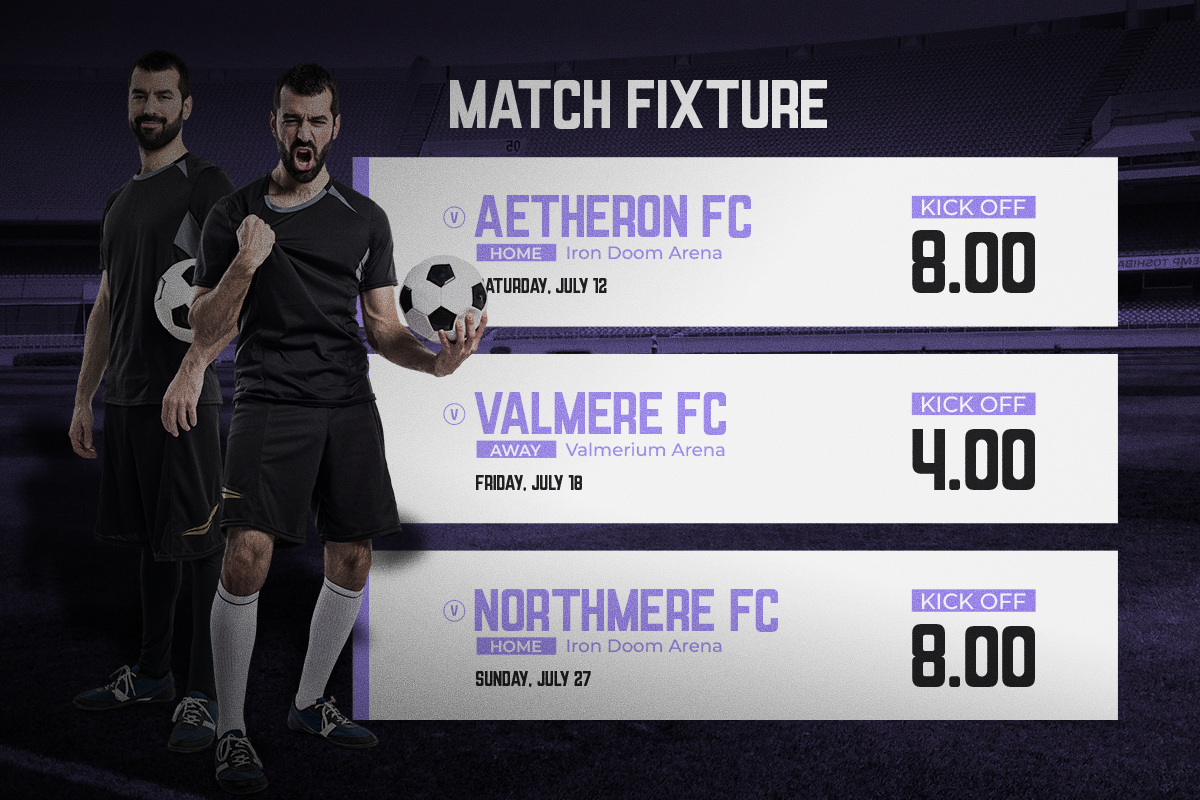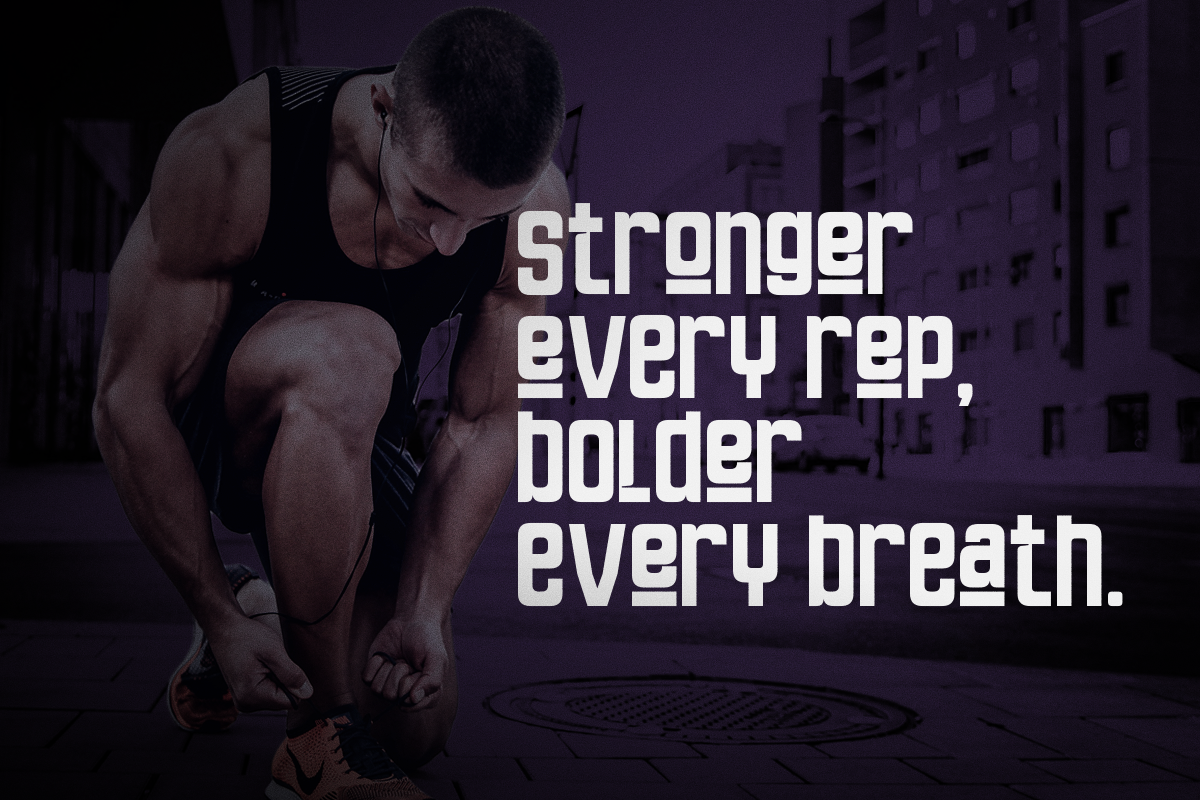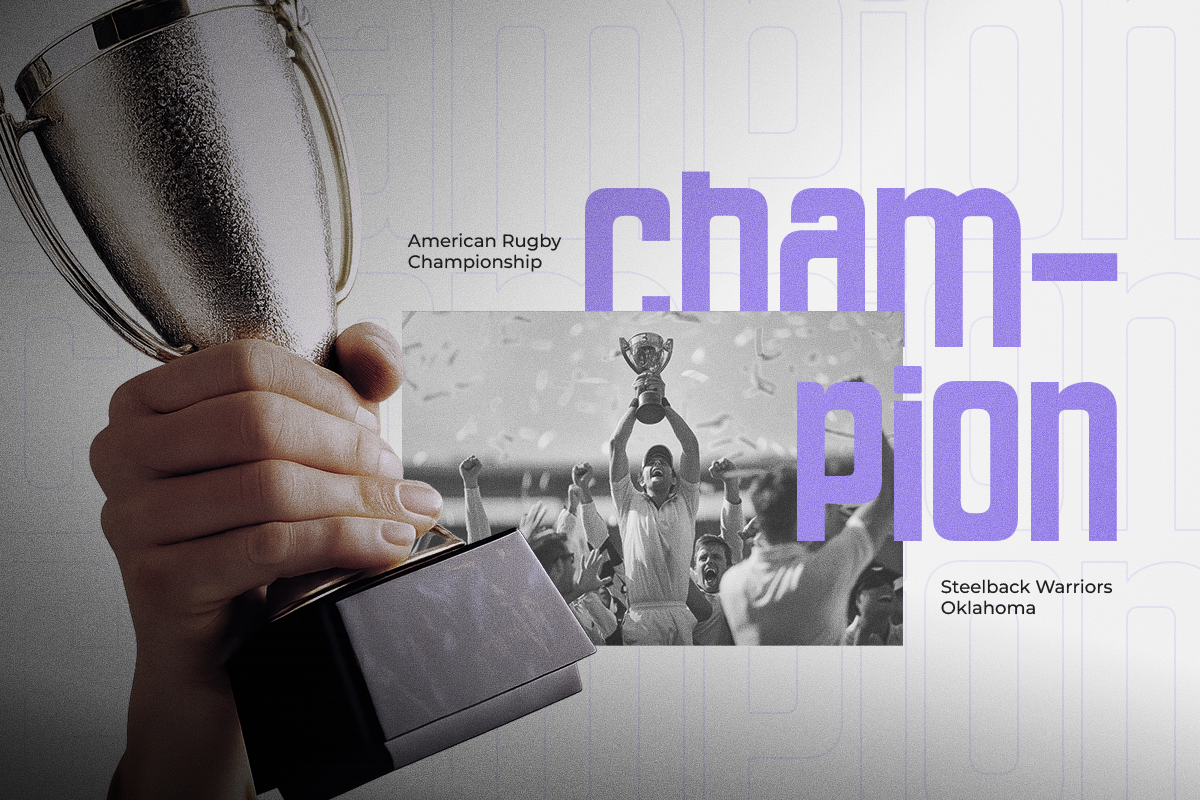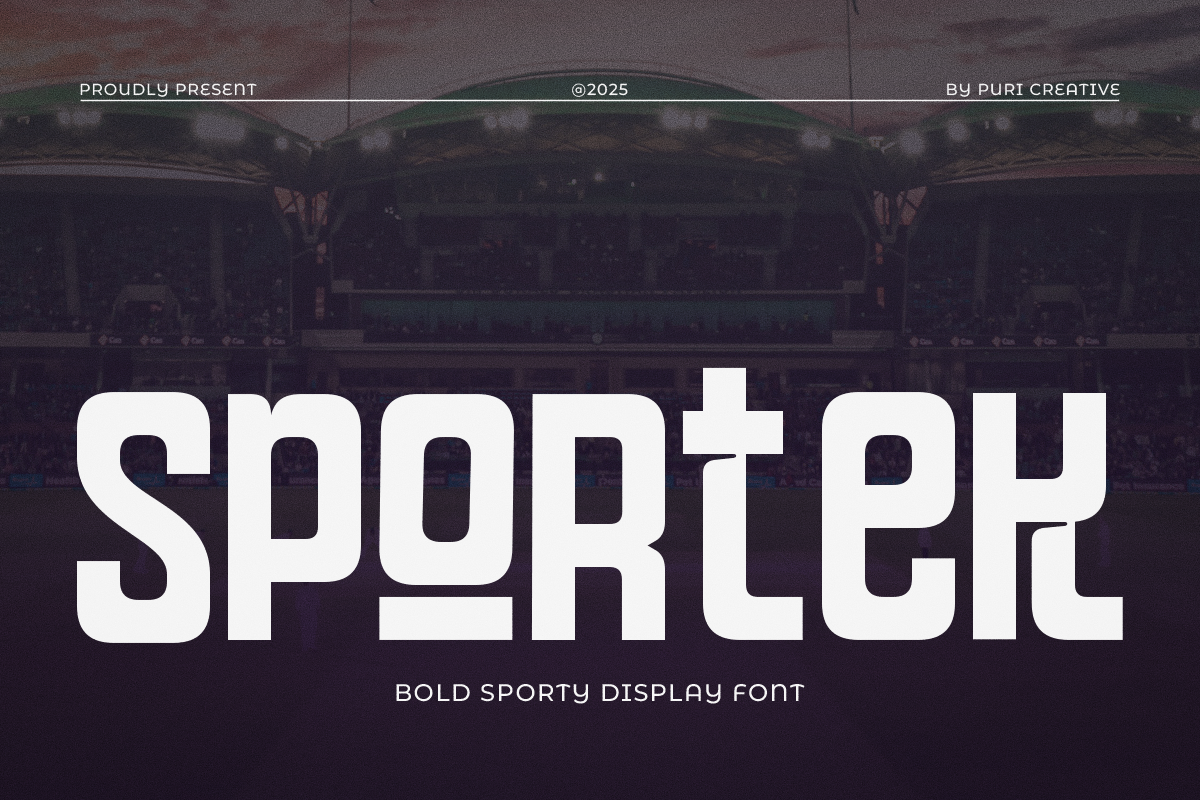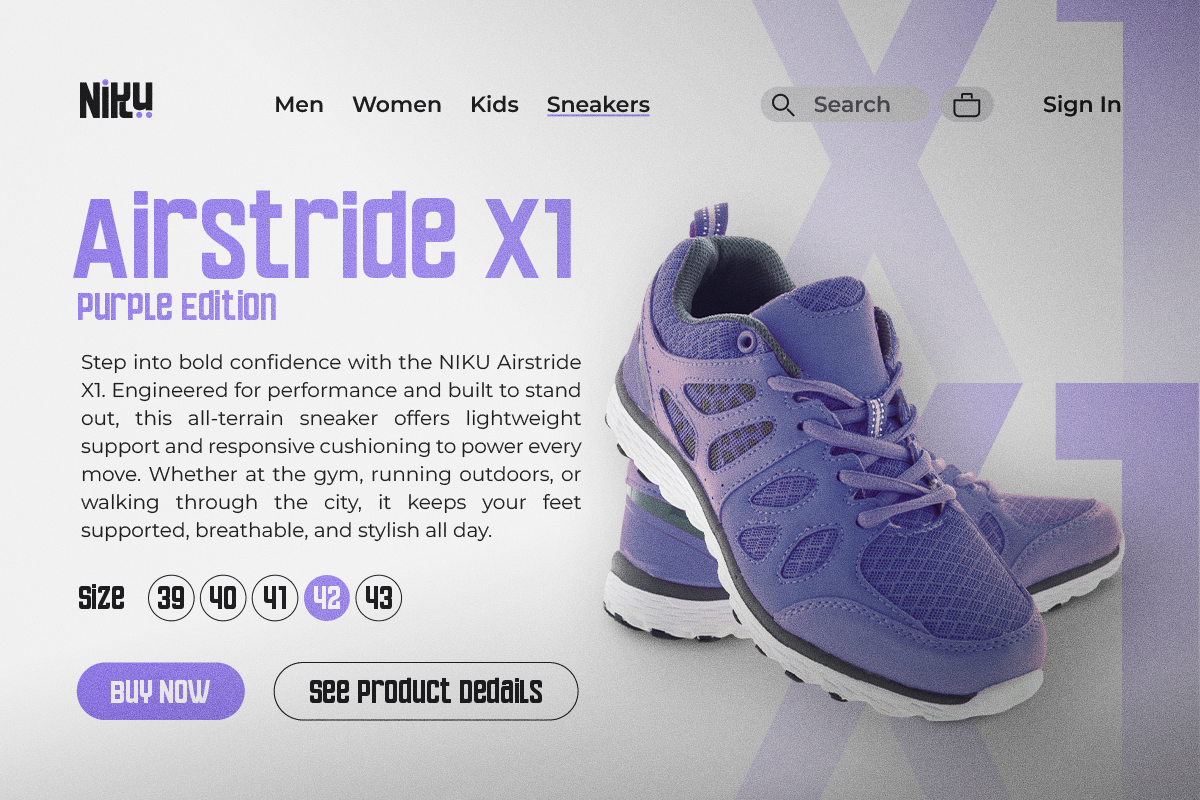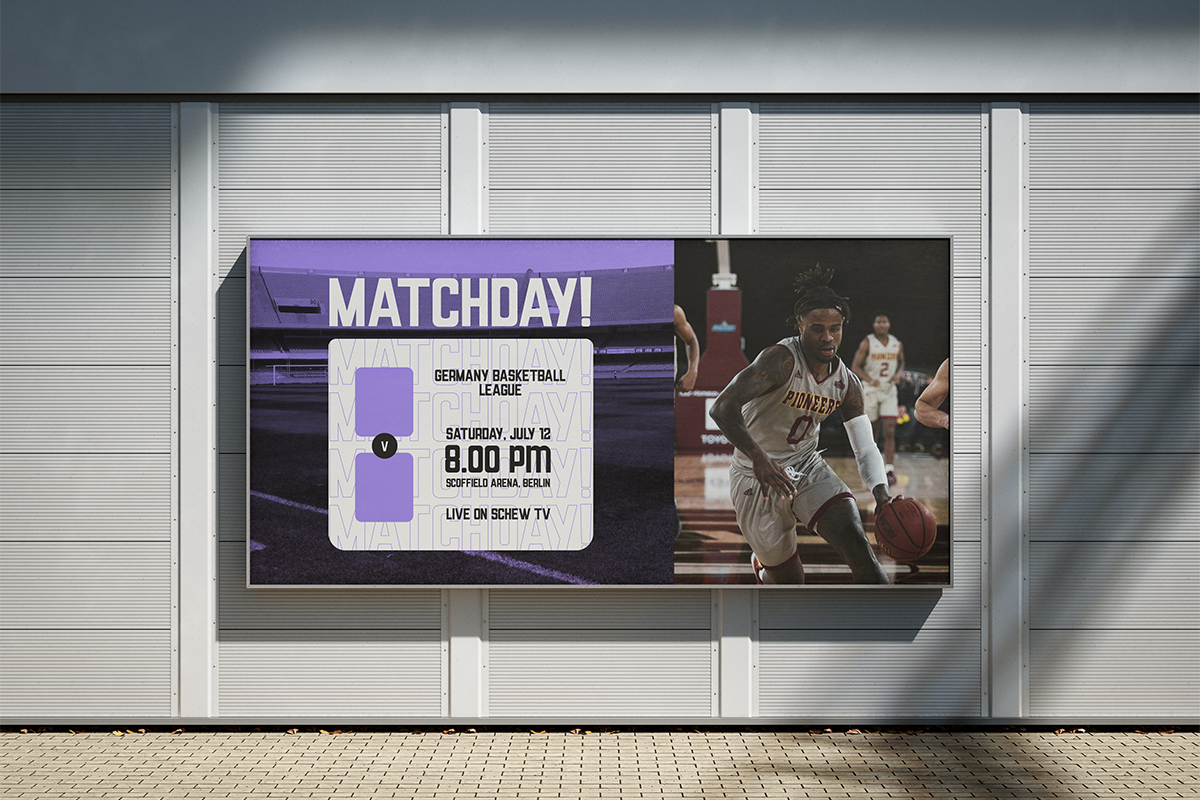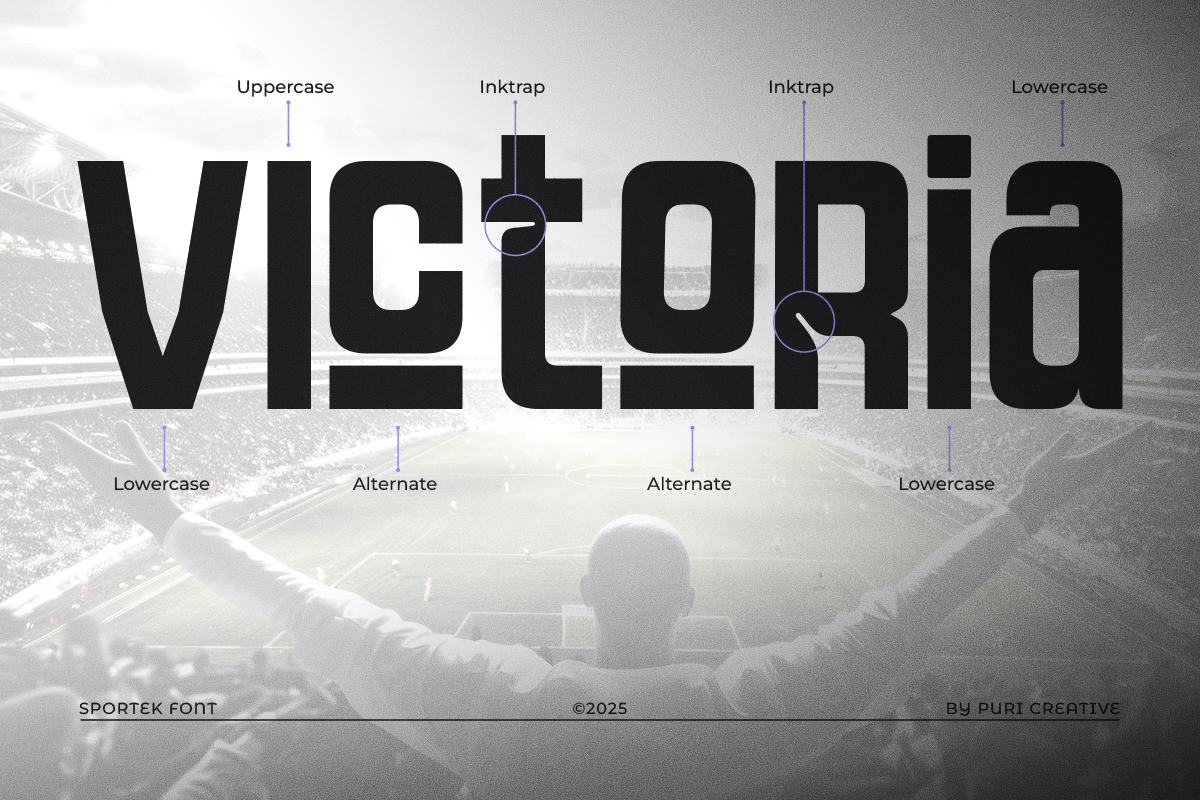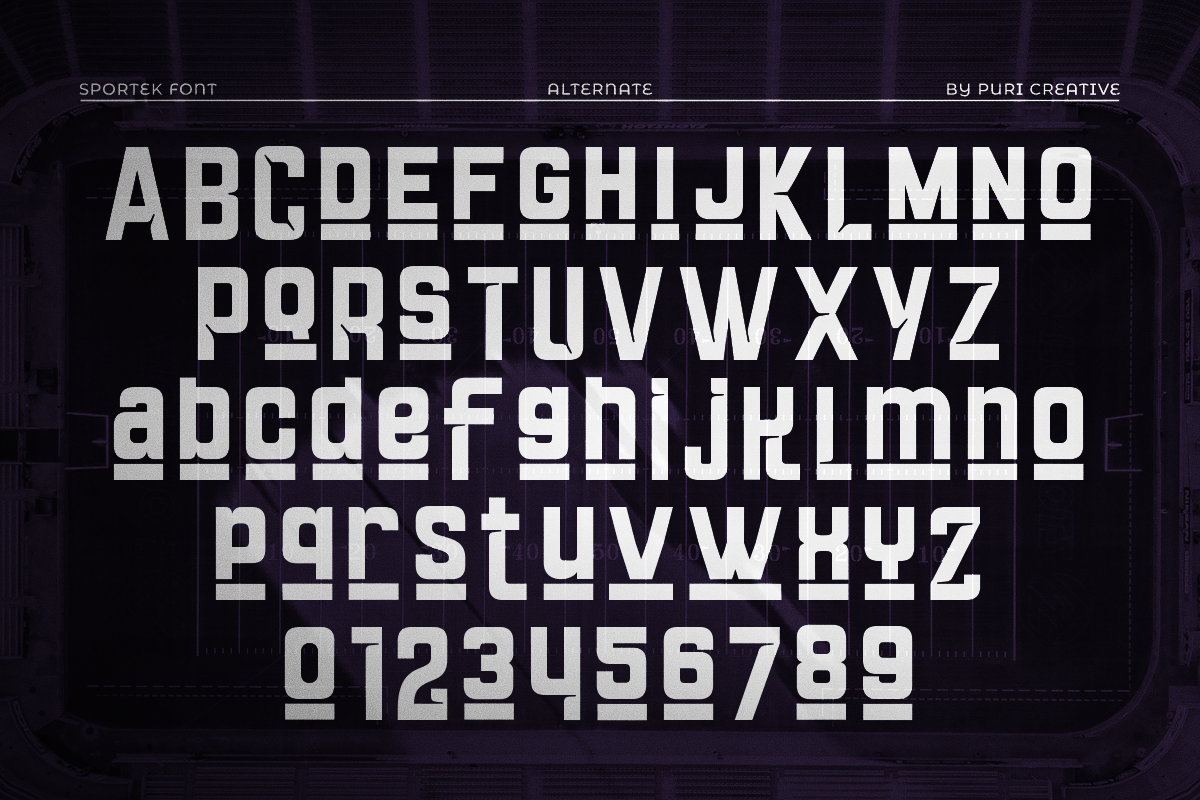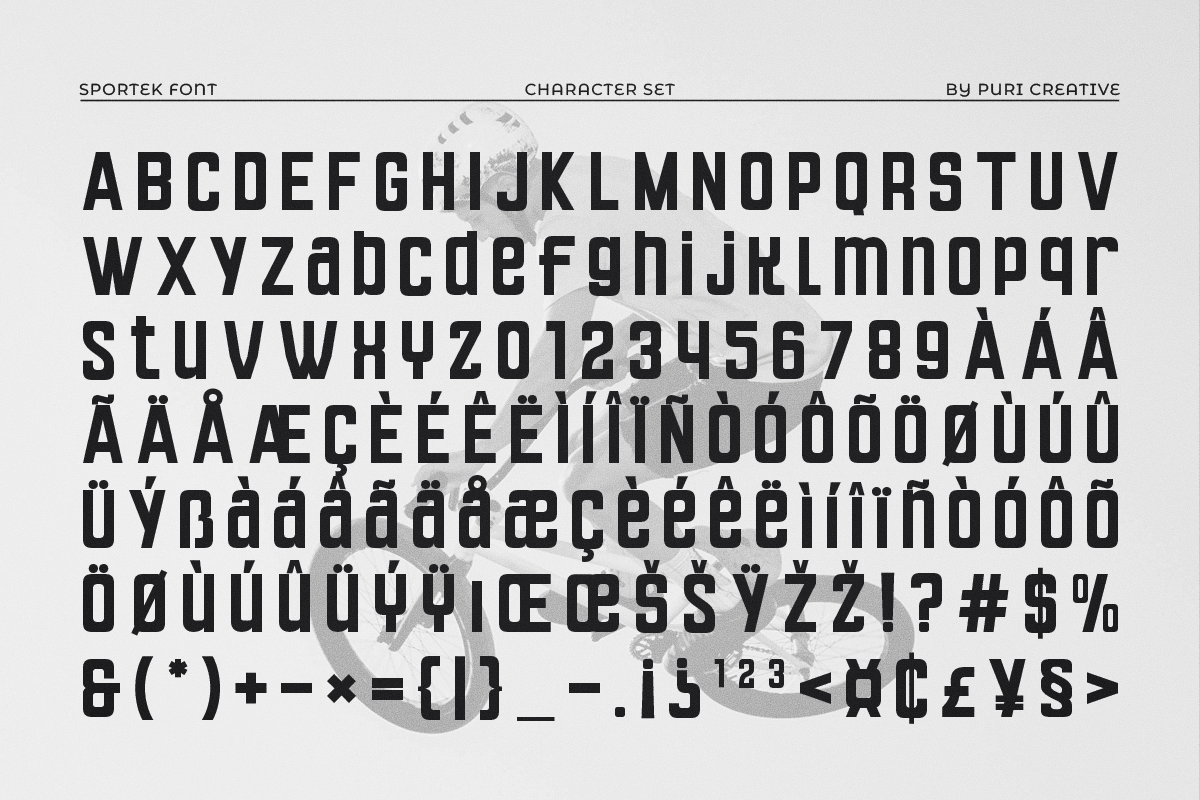
Sportek - Bold Condensed Typeface
Introducing Sportek — A Bold Condensed Typeface Built for Sports and Action
Sportek is a modern condensed sans-serif typeface designed to embody strength, structure, and movement—all essential elements of competitive sports design. The typeface features a bold construction with tight spacing, making it ideal for impactful headlines and sports branding.
The design combines uppercase, lowercase, and alternate characters to offer visual versatility, while the addition of sharp ink traps enhances legibility at smaller sizes and adds a technical, athletic character. Each glyph in Sportek is crafted with purpose—featuring squared forms, clean terminals, and compact width to maintain a powerful, high-performance look.
With alternate characters providing stylistic variation, Sportek allows designers to mix and match forms to create unique logotypes, titles, and sports-related visuals. Whether you're designing for football tournaments, activewear, or fast-paced campaigns, Sportek delivers energy, clarity, and a winning aesthetic.
- Uppercase & Lowercase Letters
- Bonus Alternate & Ligature Letters